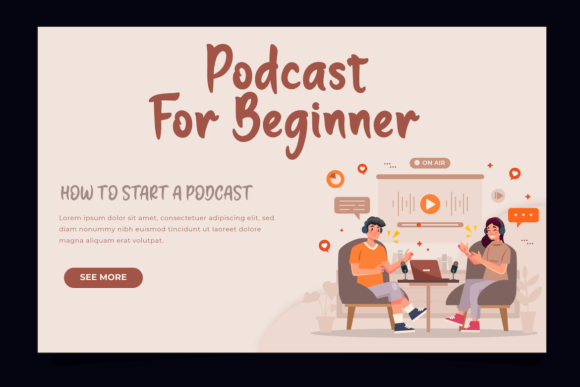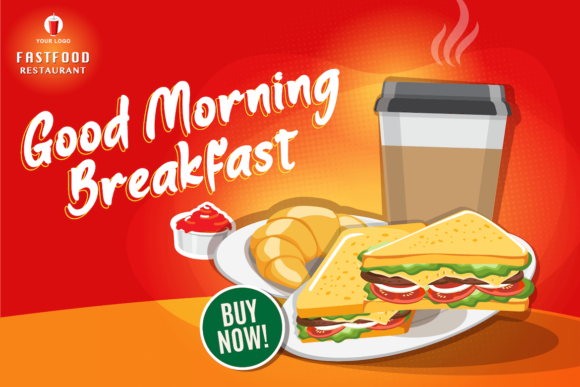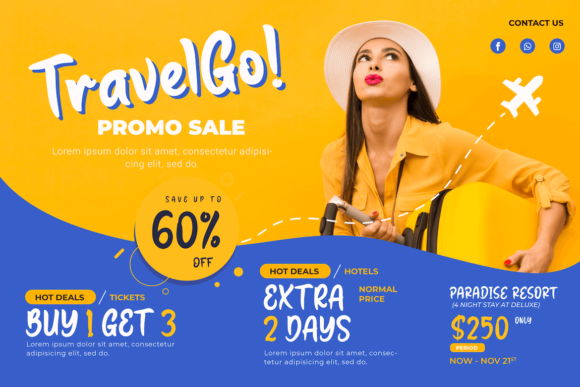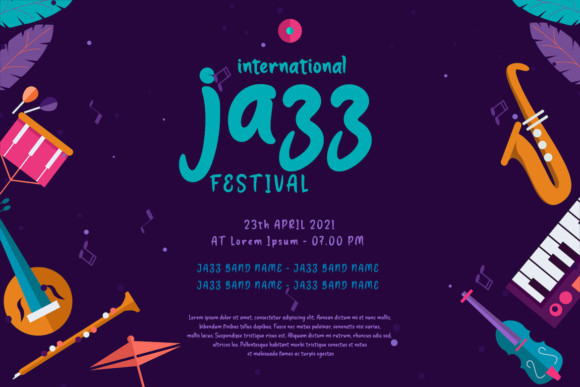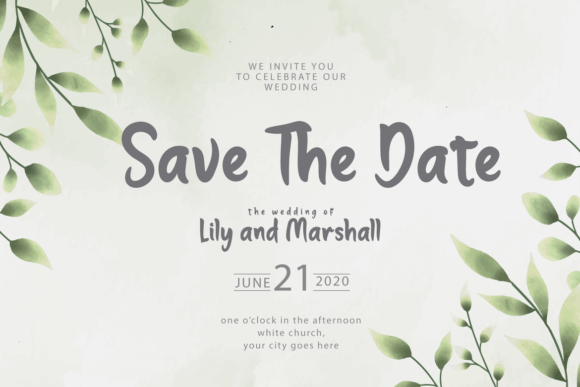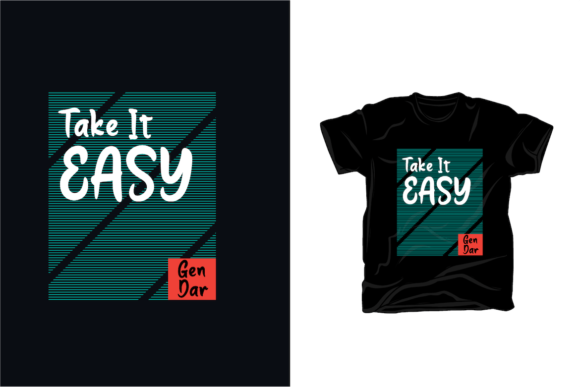
The Perfect Brush for Your Next Creative Project
Have you ever stared at a blank canvas or a blank document, feeling like your ideas are stuck? That’s when the magic happens – a spark of creativity ignites, and you know exactly what you want to create. For me, it was a handwritten card for a friend’s birthday, and I knew I needed something special to make it stand out.
That’s where the Butter Font comes in – a cool and stylish paint-brushed handwritten font that’s perfect for any creative project. Whether you’re crafting, digital designing, or making presentations, Butter Font is the ideal choice. Its unique, brush-like texture adds a touch of elegance and sophistication to any design, making it a valuable tool for designers.
With Butter Font, you can bring your ideas to life in a way that’s both beautiful and unique. Its versatility and style make it a must-have for any designer looking to add a personal touch to their work.
Key Features of Butter Font
- Font Style: Script font with a smooth, elegant feel
- Unique Characteristics: Features a unique blend of modern and classic design elements, with intricate details and subtle flair
Designer Review: Butter Font
Overall, I’d say the Butter Font is a decent addition to any designer’s toolkit. It’s got some great qualities, but also some limitations that might hold it back.
- Soft, rounded design that’s perfect for branding and advertising
- Works well in various font sizes, from small to large
- Legibility is great, even at low resolutions
- Available in a range of weights and styles to suit different design needs
- Lack of sharpness and definition, which might not be ideal for formal or technical content
- Not suitable for use in headlines or titles, due to its rounded design
- Can look a bit childish or playful, which might not be suitable for all brands or designs
The Butter Font is a solid choice for designers looking for a soft, rounded font. While it excels in certain areas, its limitations mean it’s not a one-size-fits-all solution. With some careful consideration of the design requirements, it can be a great addition to your toolkit.
For optimal results, use the Butter Font for titles and headings to create a visually appealing contrast with your body text.
For best results, pair the Butter Font with a clean and simple background to let the font shine.
For maximum impact, use the Butter Font for headings and titles to create a cohesive look in your presentation or document.
The Butter Font is ideal for:
- Children’s books and educational materials
- Home decor and signage
Alternatives to Butter Font for Designers
Great Vibes is a modern script font that works well for creating a friendly and approachable tone. It’s perfect for use in logos, headings, and other design elements where a touch of elegance is needed. Great Vibes is more refined and elegant compared to Butter Font, making it suitable for high-end branding and advertising materials.
2. Dancing Script
Dancing Script is a playful and whimsical script font that’s ideal for creating a fun and energetic atmosphere. It’s great for use in social media graphics, blog posts, and other digital content where a touch of personality is needed. Dancing Script is more casual and informal compared to Butter Font, making it suitable for younger audiences and creative industries.
Carolyna Pro is a elegant and sophisticated script font that works well for creating a luxurious and high-end tone. It’s perfect for use in branding, advertising, and other design elements where a touch of glamour is needed. Carolyna Pro is more refined and polished compared to Butter Font, making it suitable for luxury brands and high-end products.